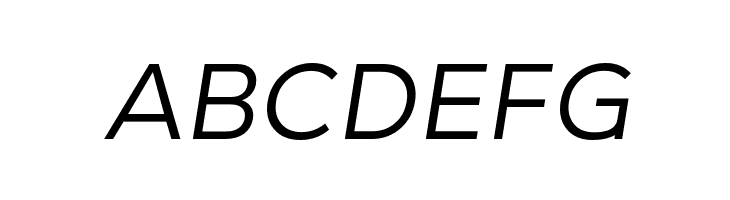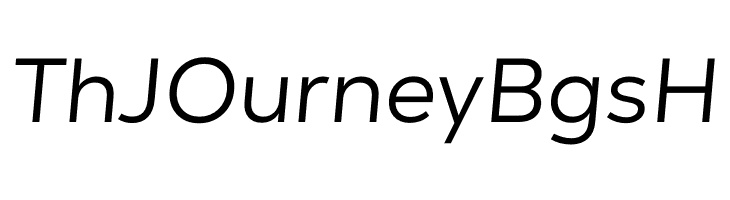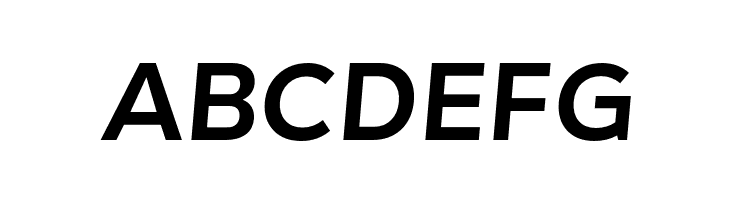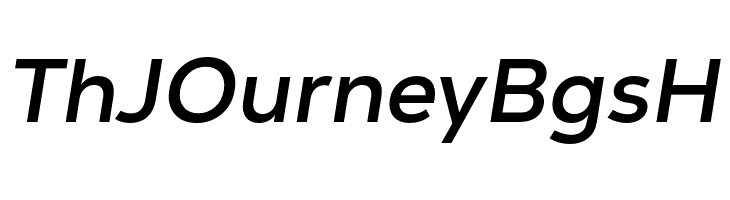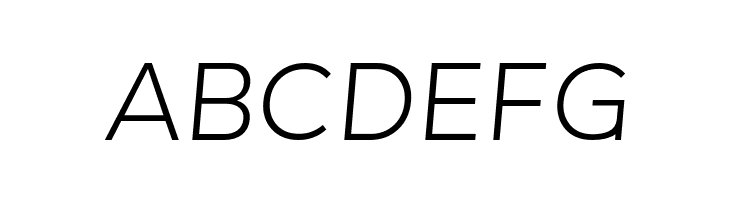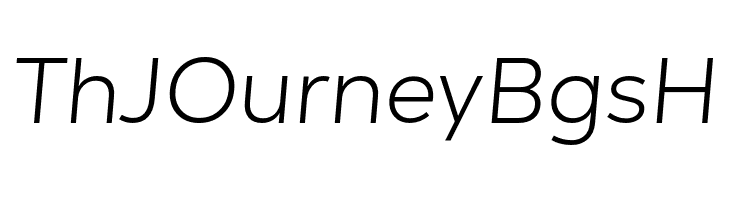
• GT Vice City Sans - Bold Italic
Bold italic sans-serif font with a modern look.
• GT Vice City Sans - Bold Soft Italic
Bold, italic sans-serif with a soft, rounded style.
• GT Vice City Sans - Book
Modern geometric sans-serif font.
• GT Vice City Sans - Book Italic
Modern italic sans-serif font.
• GT Vice City Sans - Book Soft Italic
Modern sans-serif with a soft italic style.
• GT Vice City Sans - Light
Modern, light sans-serif font.
• GT Vice City Sans - Light Italic
Modern, light, italic sans-serif font.
• GT Vice City Sans - Light Soft Italic
Modern sans-serif with light, soft italic style.
• GT Vice City Sans - Medium
Modern geometric sans-serif font.
• GT Vice City Sans - Medium Italic
Modern sans-serif font with medium weight and italic style.